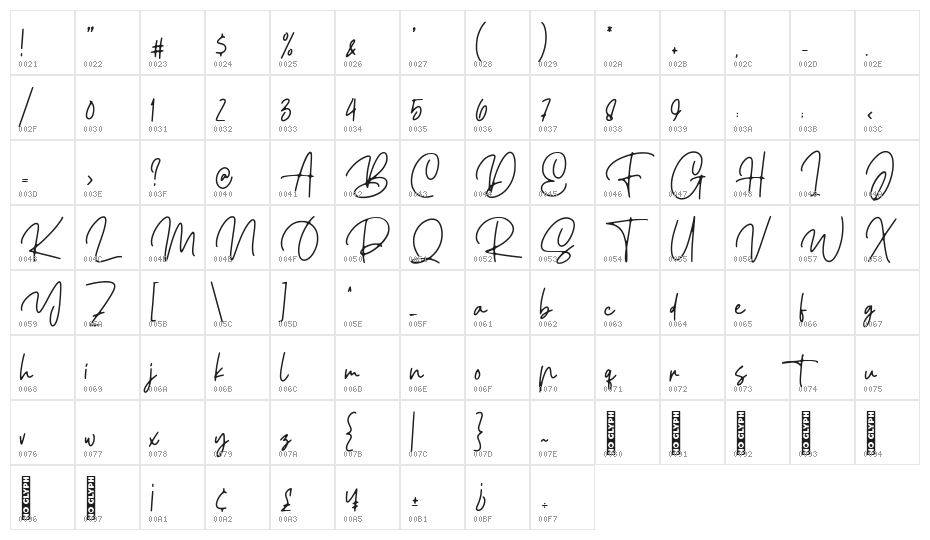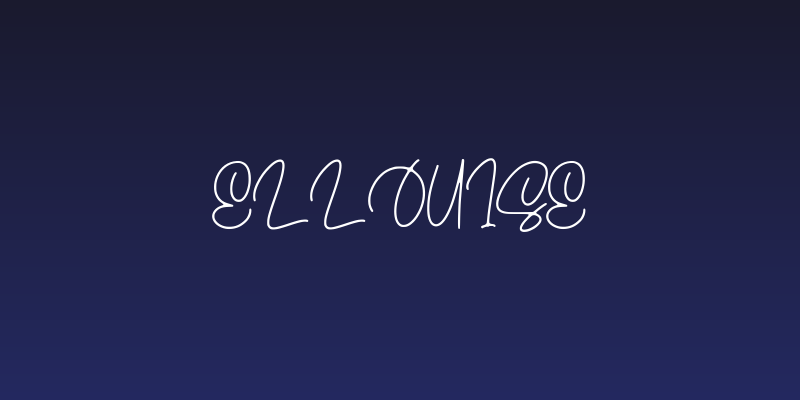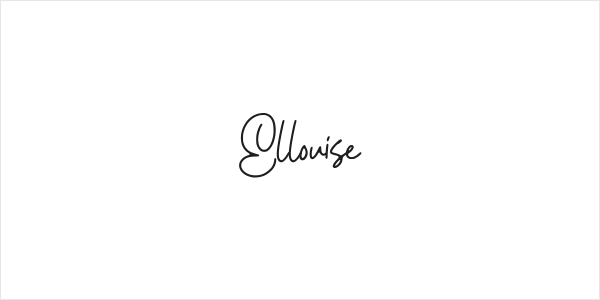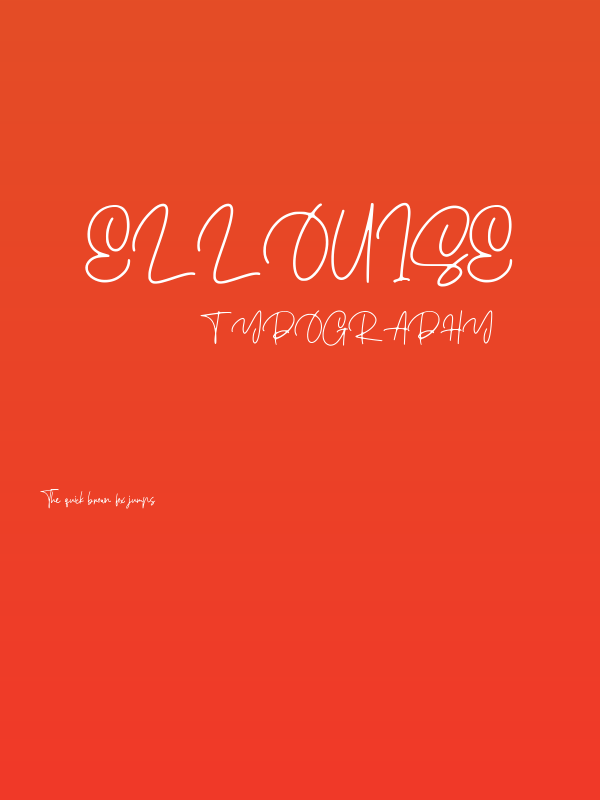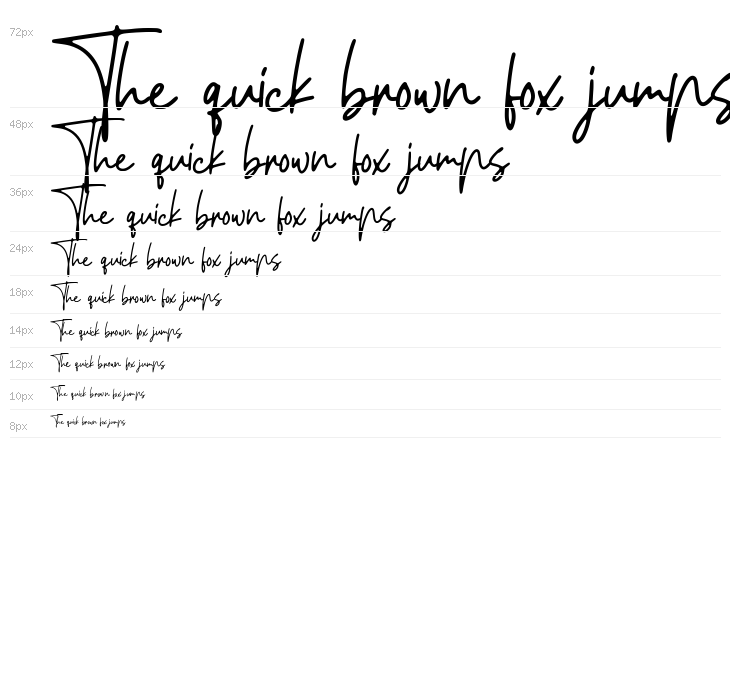
Ellouise Font
Ellouise Description
This font features a handwritten, cursive style with a playful and elegant flair. The uppercase letters are tall and slender, with a slight slant that adds a dynamic feel. The lowercase letters are more compact, maintaining the cursive flow with smooth, continuous strokes. Numbers and special characters follow the same fluid style, ensuring consistency throughout. The overall design is both sophisticated and approachable, making it suitable for a variety of creative applications.
| Proposed Projects | Ideal for wedding invitations, greeting cards, personal branding, and creative projects that require a personal touch. |